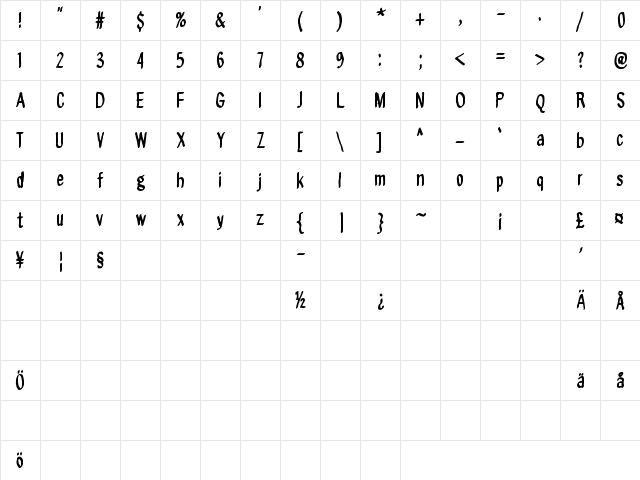
On aika soittaa sinfonia Regular
Design Context for On aika soittaa sinfonia
On aika soittaa sinfonia is a composed and adaptable typeface that performs quietly and consistently across a wide range of design contexts.